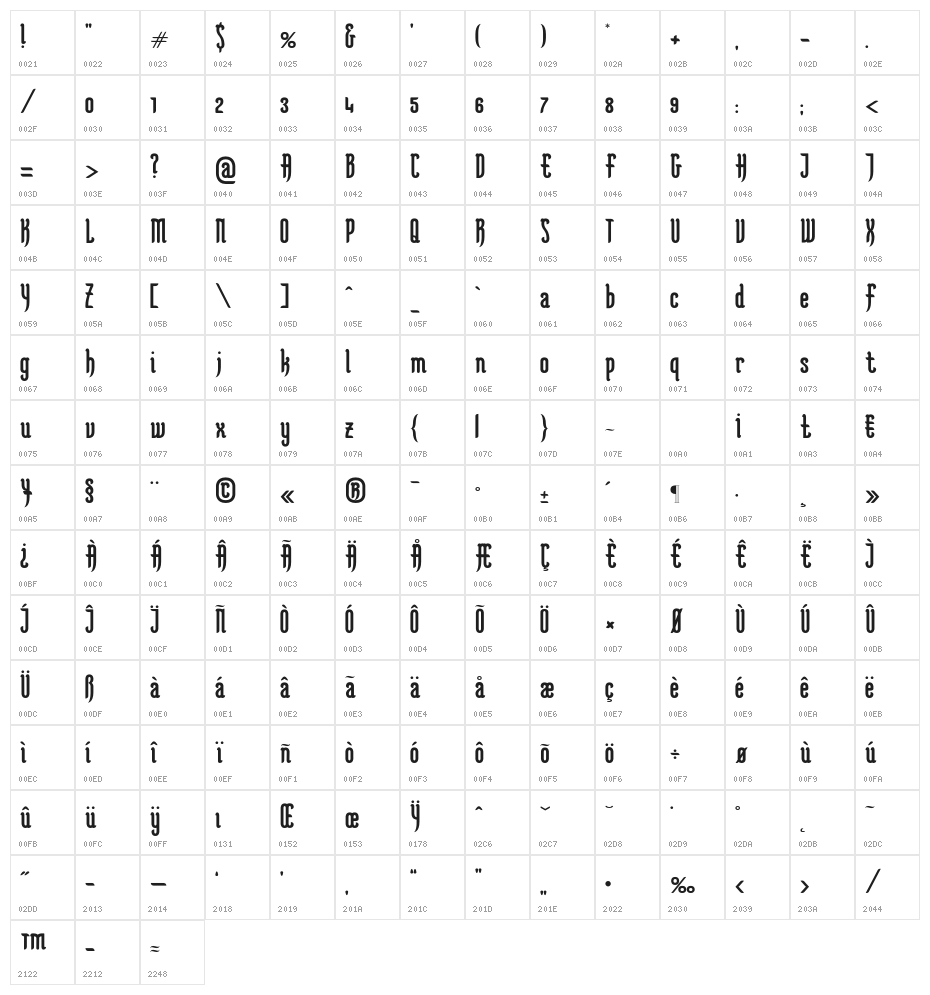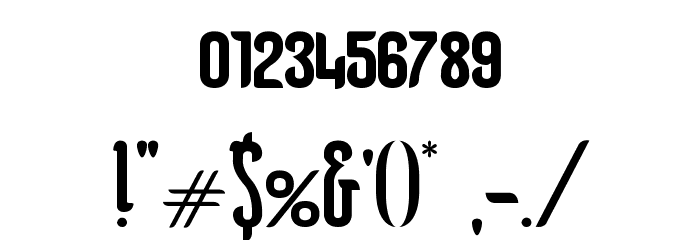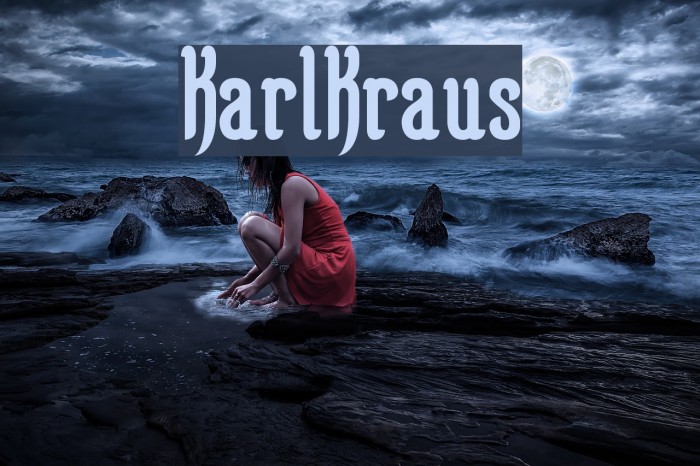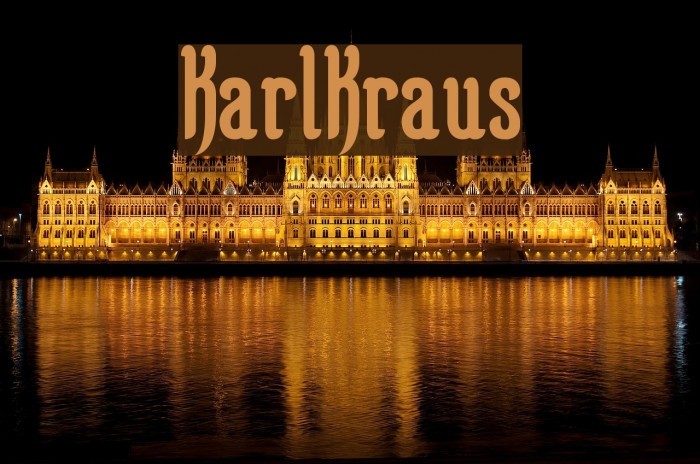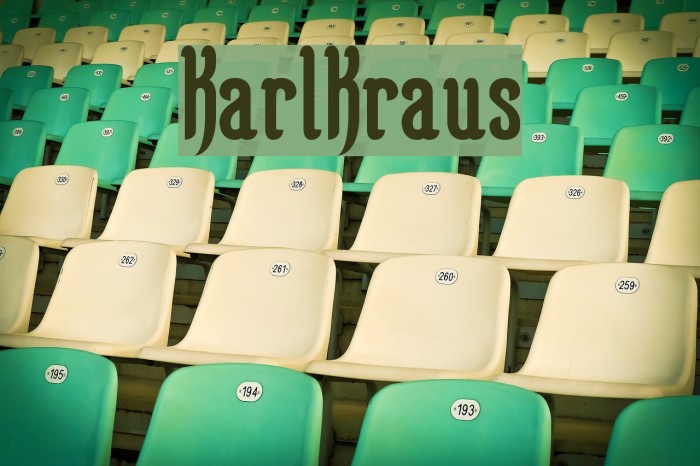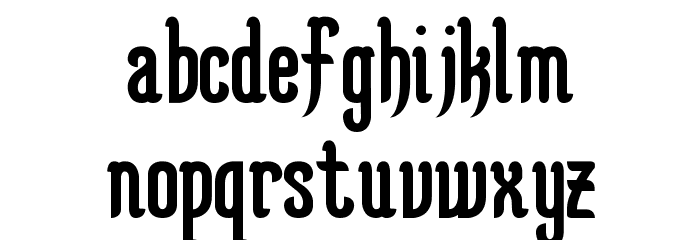
KarlKraus Font
KarlKraus Description
This font features a bold and dramatic style, characterized by its sharp, angular serifs and high contrast between thick and thin strokes. The uppercase letters exhibit a strong vertical emphasis, while the lowercase letters maintain a consistent flow with rounded edges. The numerals are distinct and align well with the overall aesthetic, providing a cohesive look. Special characters are designed with the same attention to detail, ensuring versatility across different uses. The font's unique style makes it suitable for projects that require a touch of elegance and boldness.
| Overall Style | Classic |
| Proposed Projects | Ideal for branding, editorial design, posters, and headlines that require a bold statement. |